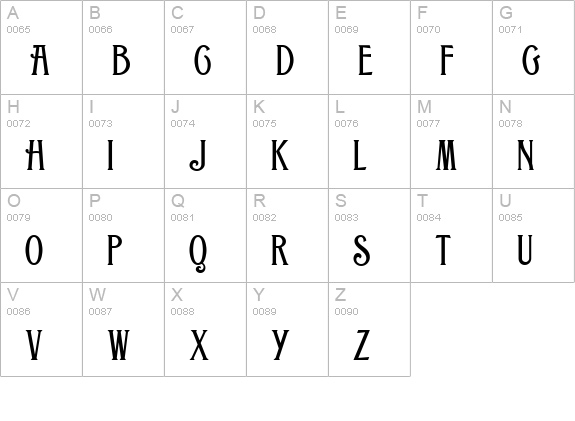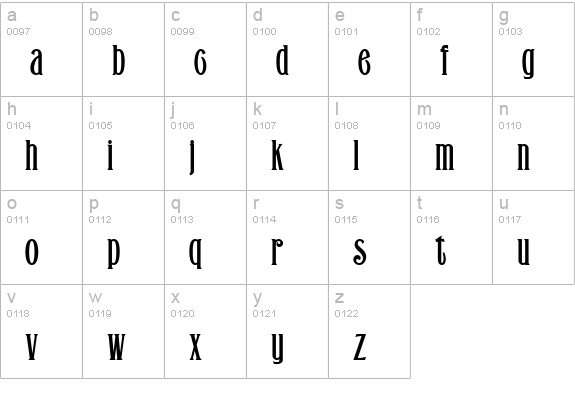
RefugioRefinedWBW Font Details
RefugioRefinedWBW is a captivating font that effortlessly combines elegance and modernity. Its clean lines and refined curves make it a perfect choice for a wide range of design projects. This font exudes a sense of sophistication, making it ideal for both professional and creative endeavors. What sets RefugioRefinedWBW apart is not only its aesthetic appeal but also the fact that it is freely available to download at FontsMarket.com. This means that designers and enthusiasts can easily access this remarkable font without any cost. With RefugioRefinedWBW, you can bring a touch of class to your branding materials, website design, advertisements, and more. Its versatility allows it to seamlessly adapt to various styles, making it suitable for both bold and subtle designs. The carefully crafted letterforms of RefugioRefinedWBW create an exquisite reading experience, ensuring clarity and legibility in any context. Whether used for headlines, body text, or even logos, this font's timeless beauty will undoubtedly leave a lasting impression on your audience. RefugioRefinedWBW is a true testament to the power of free resources in the design world. It offers an opportunity for designers to access high-quality fonts without compromising on style or functionality. So why wait? Head over to FontsMarket.com and download RefugioRefinedWBW today to add an extra touch of elegance to your next project.